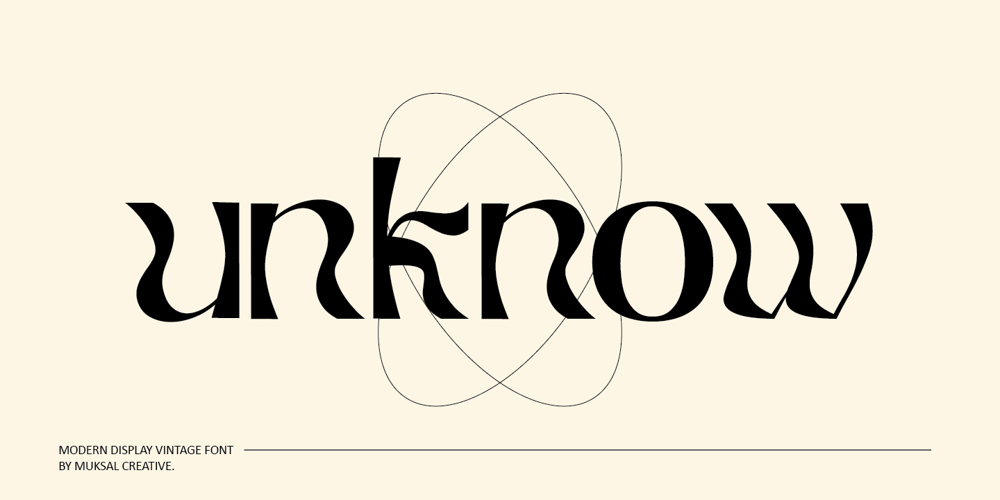
Unknow
Unknow font
Unknow Font Family was designed by Muksalmina and published by Muksal Creatives. Unknow contains 1 styles and family package options. Unknow Modern Display Vintage Font, special glyphs, ornament and multilingual support. It’s a very versatile font that works great in large and small sizes. Perfect for editorial projects, Logo design, Clothing Branding, product packaging, magazine headers, or simply as a stylish text overlay to any background image.Features:Lowercase and UppercaseNumerals & Punctuation,Accented charactersMultiple Languages Supported